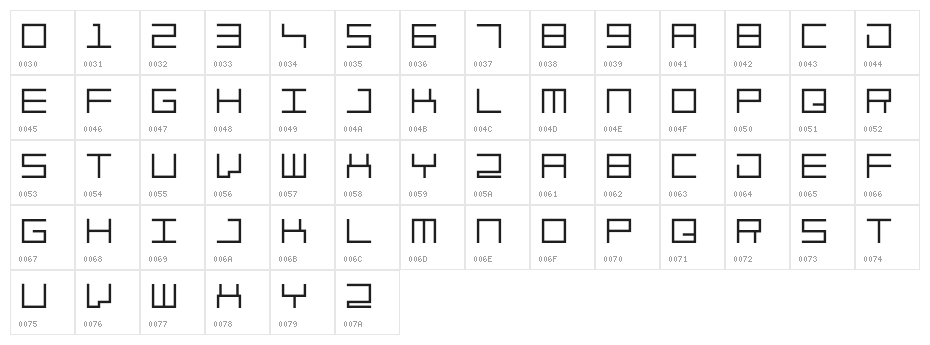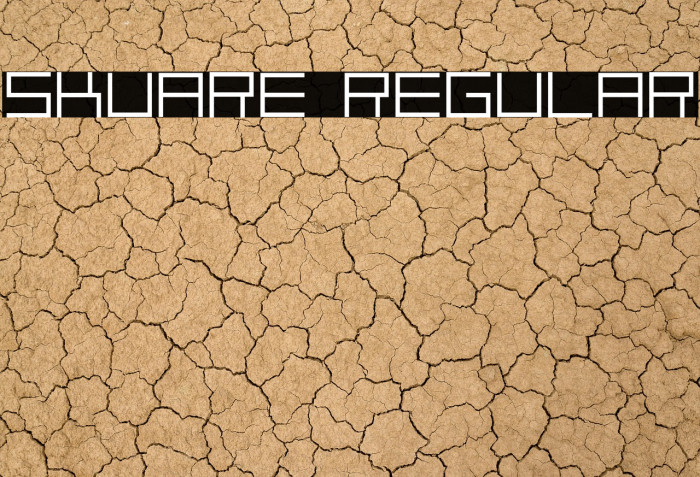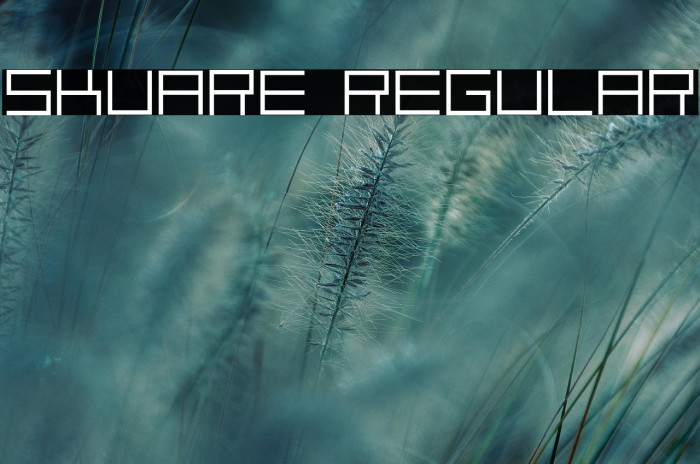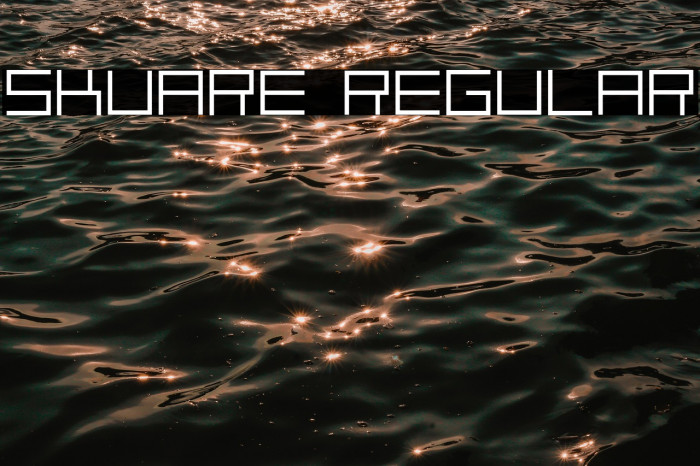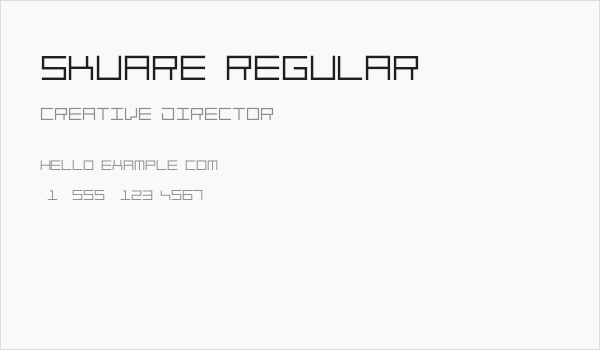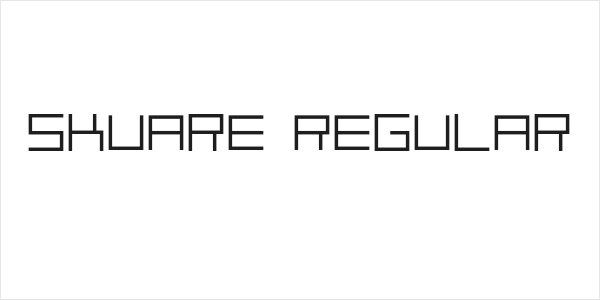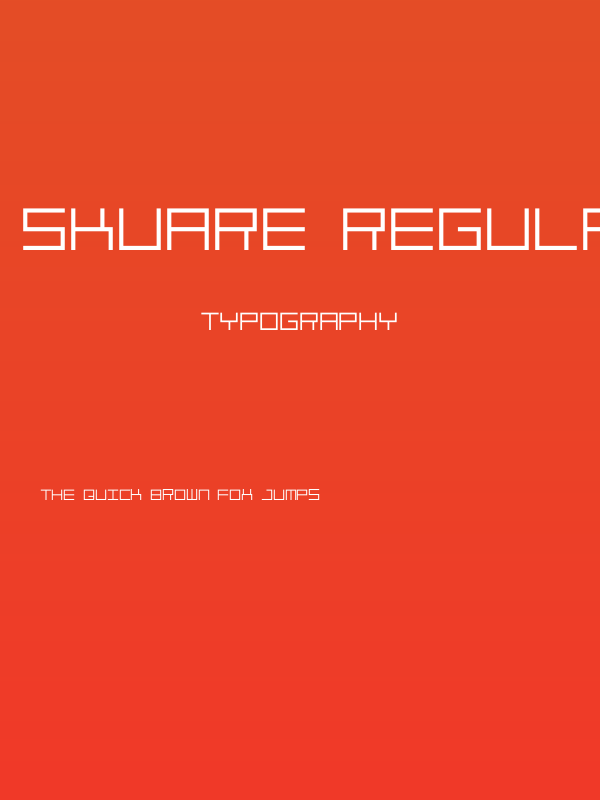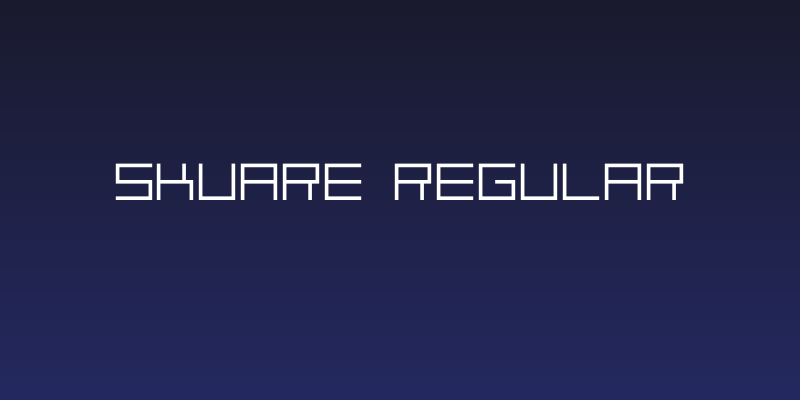
skuare Regular Font
skuare Regular Description
This font features a geometric, grid-like design with a modern and minimalistic aesthetic. Each character is constructed with straight lines and right angles, giving it a structured and uniform appearance. The uppercase and lowercase letters share a consistent height, contributing to a cohesive look. The numerals and special characters maintain the same geometric style, ensuring visual harmony across all elements. The font's clean lines and lack of curves make it highly legible, even at smaller sizes. Its unique style is ideal for projects that require a contemporary and tech-inspired feel.
| Use Case | Logos, Headlines, Digital Interfaces |
| Proposed Projects | Ideal for tech branding, digital interfaces, modern posters, and minimalist graphic design projects. |